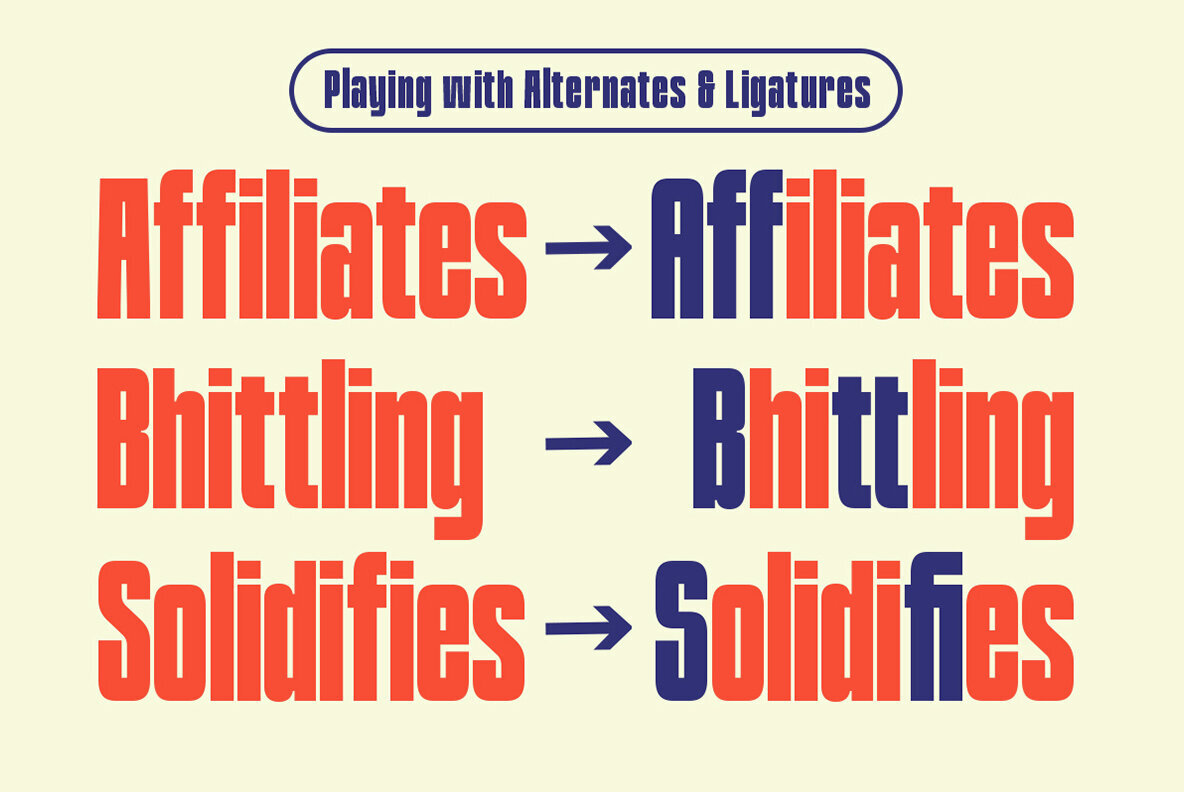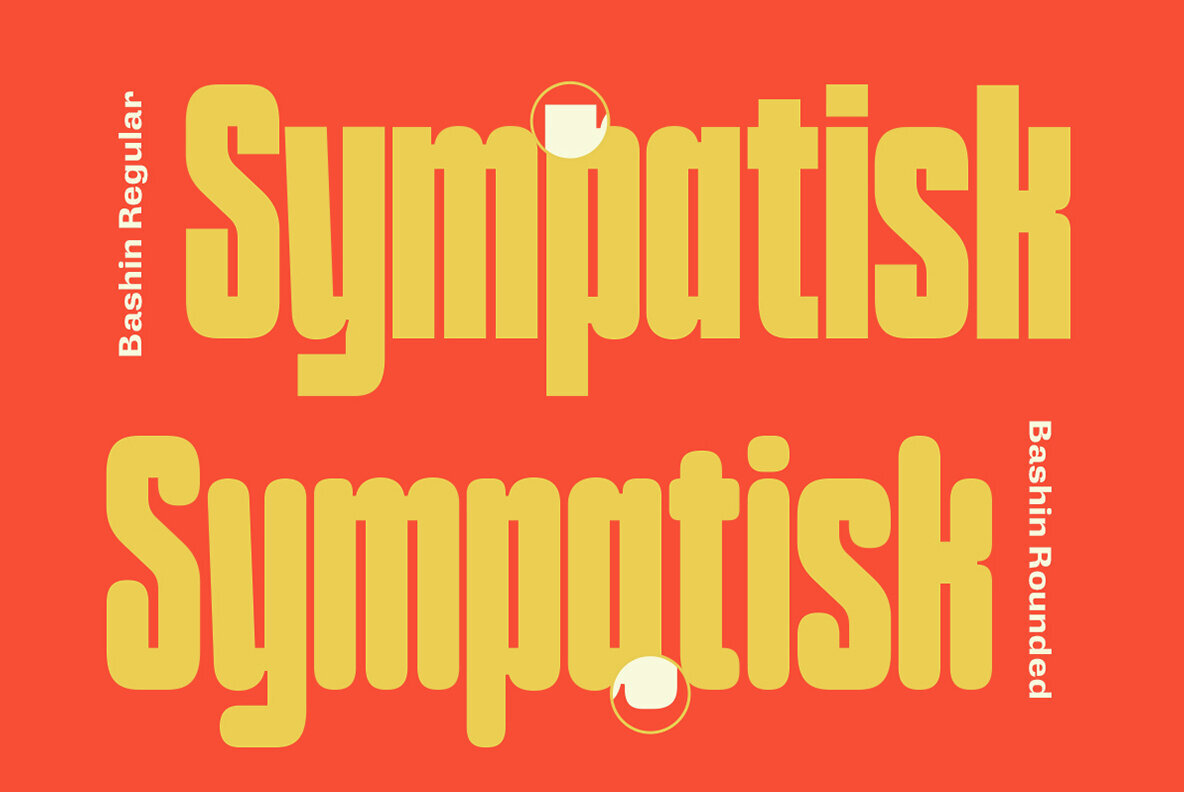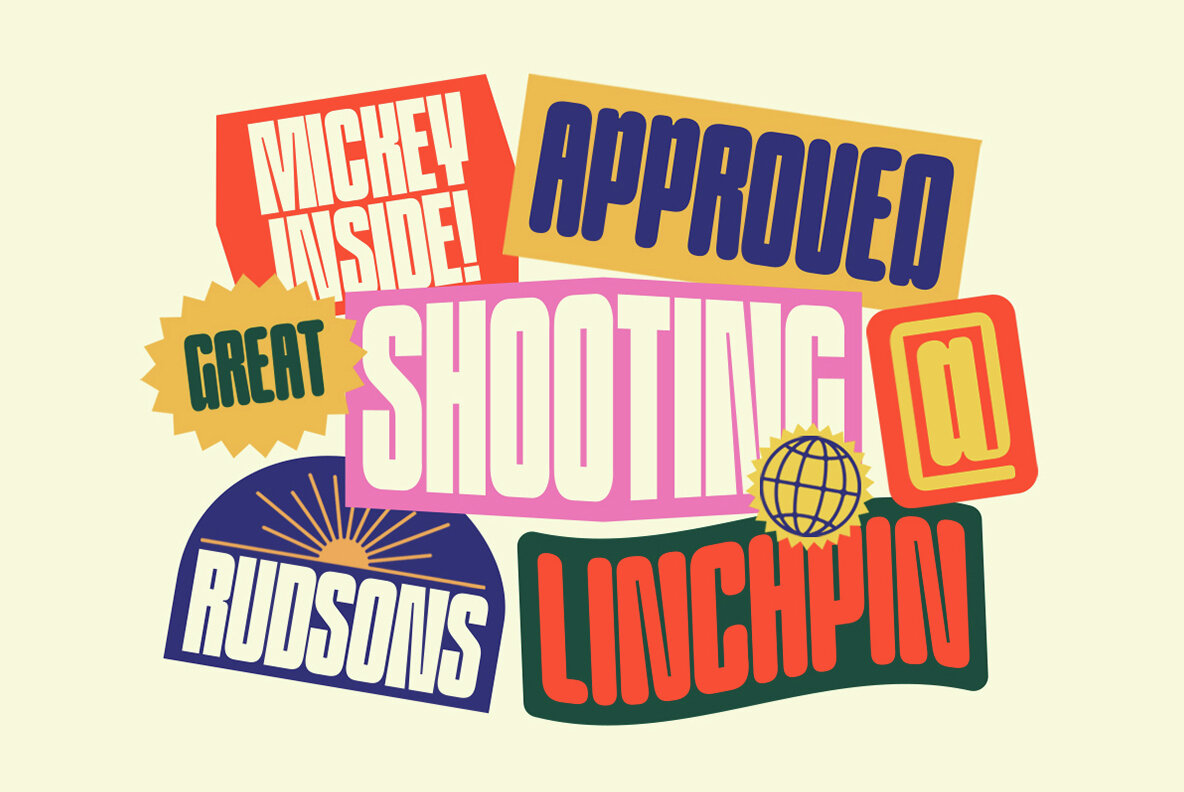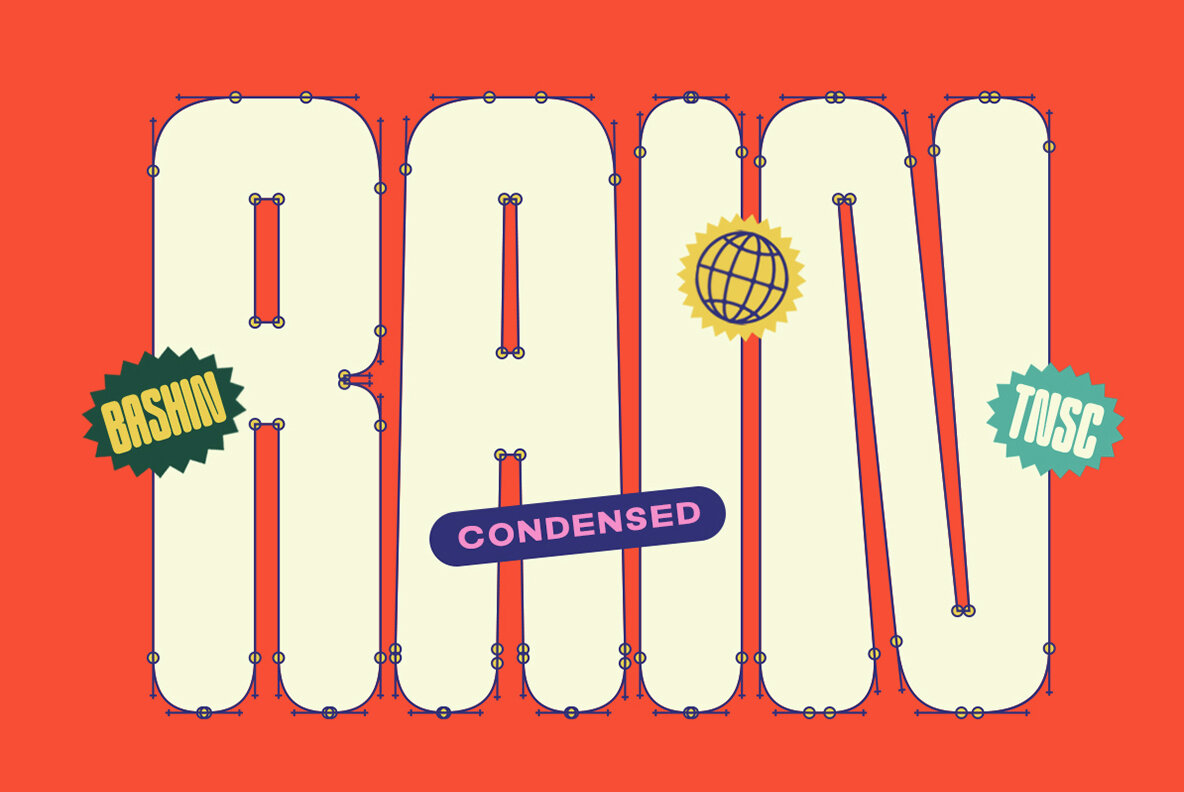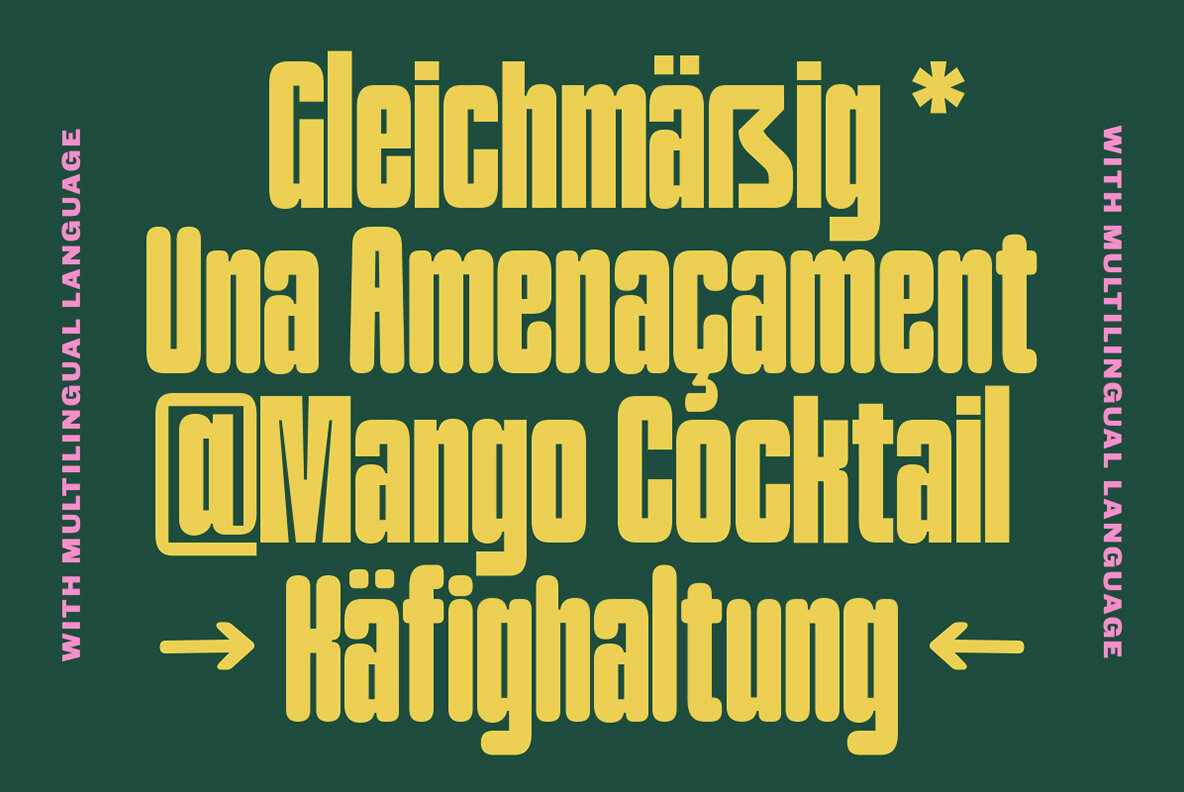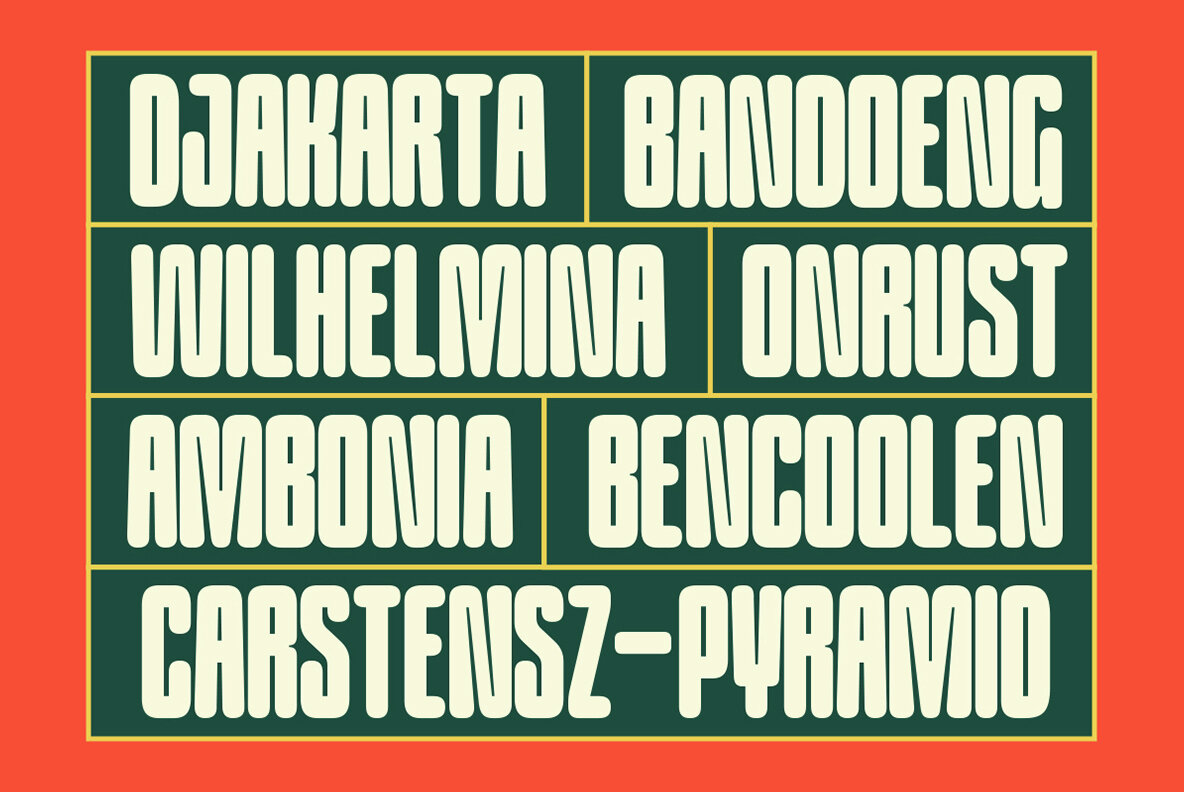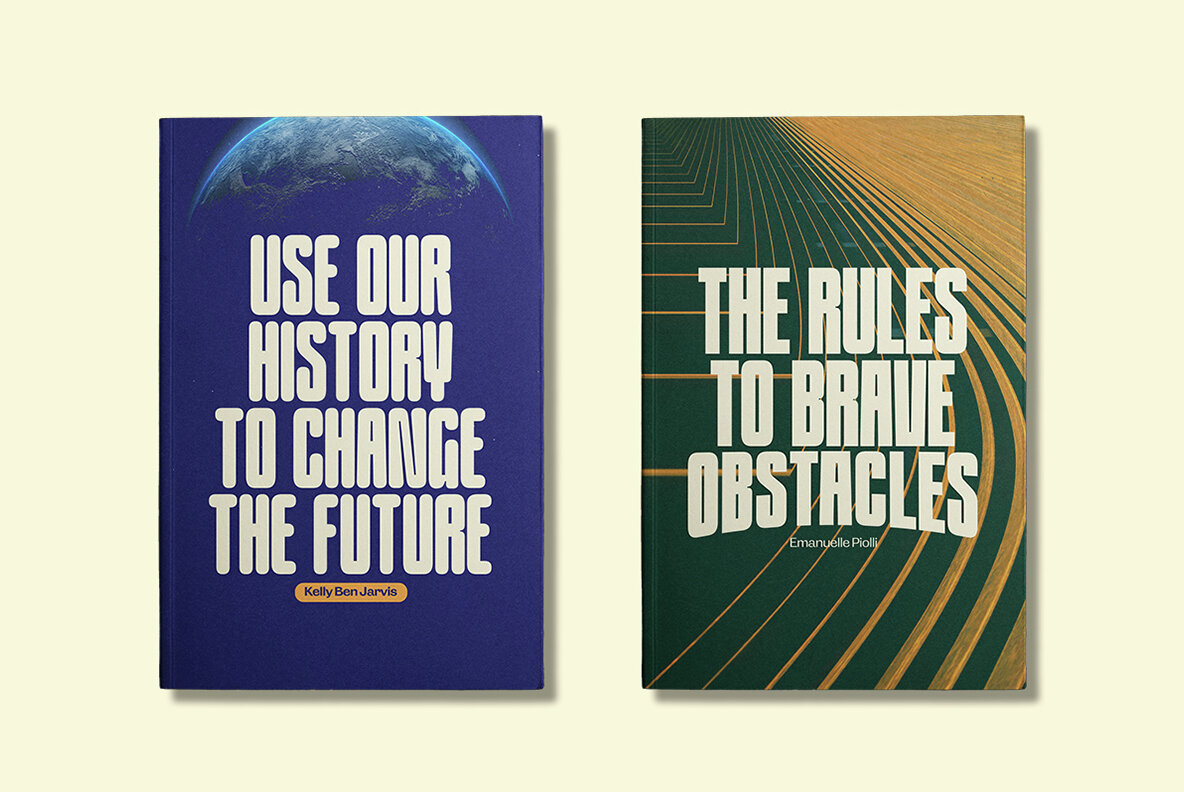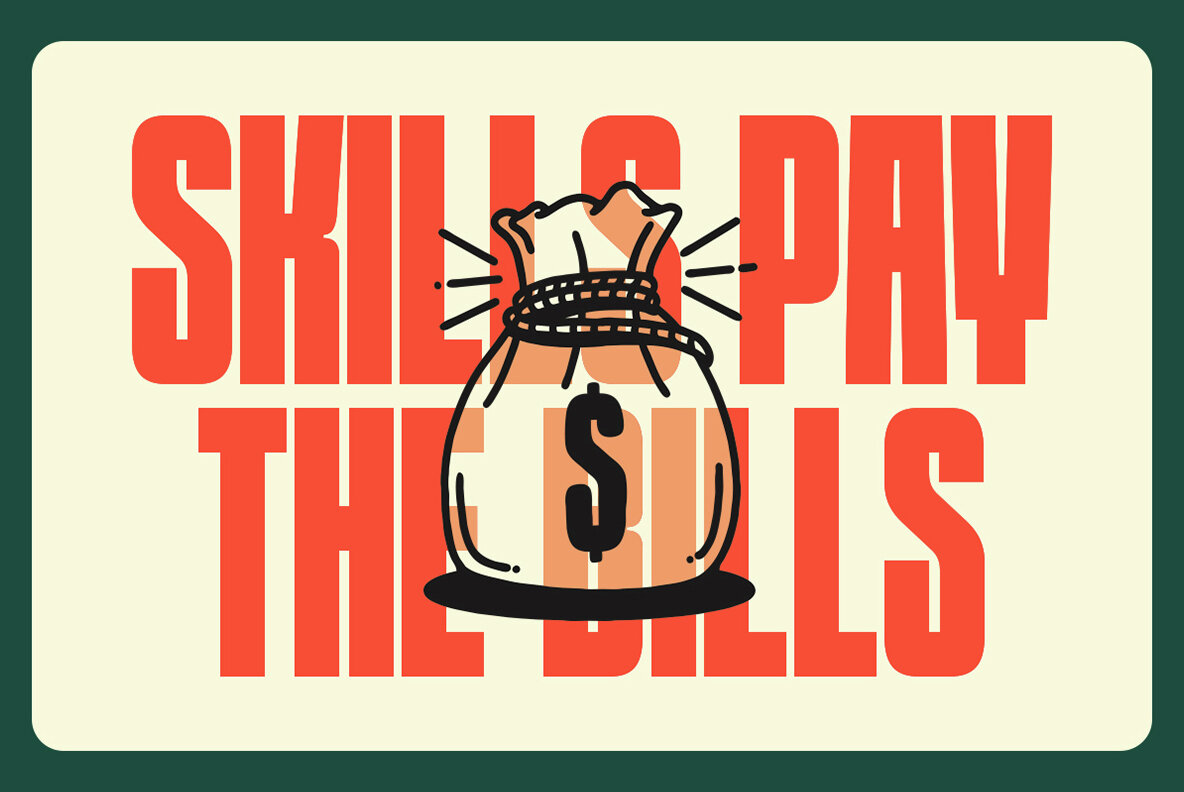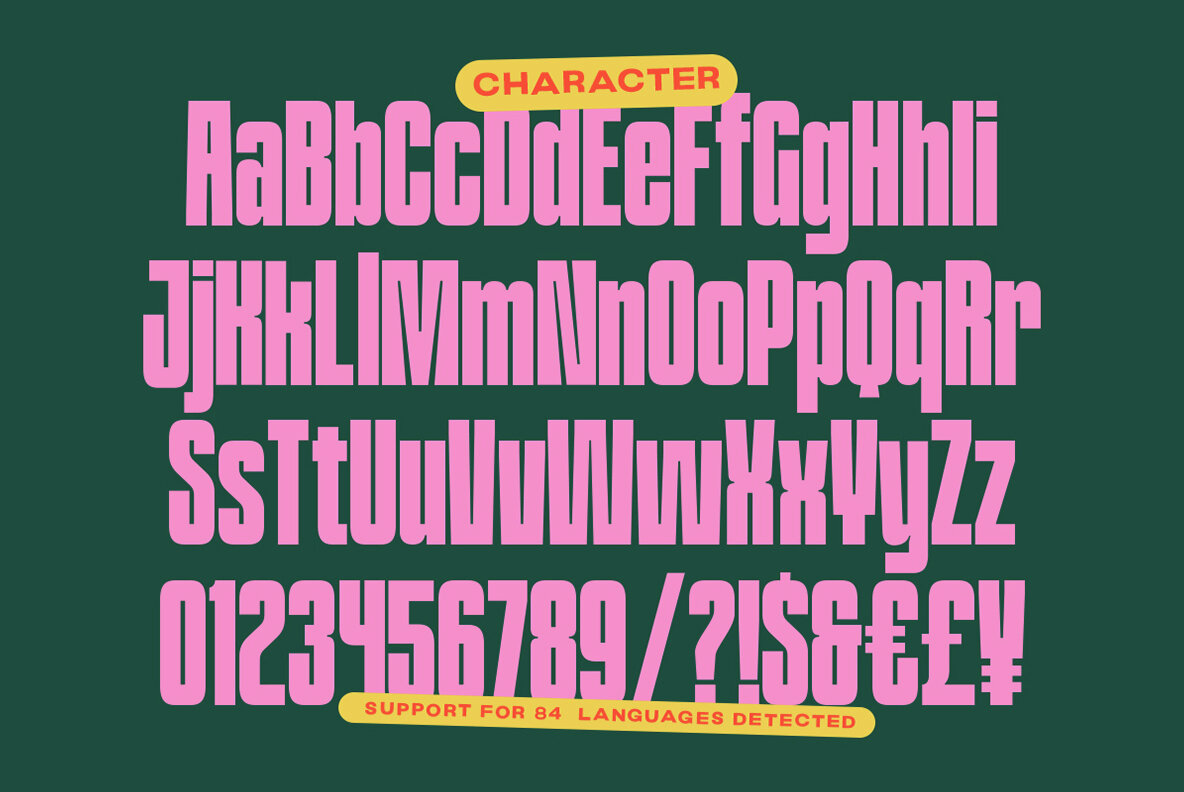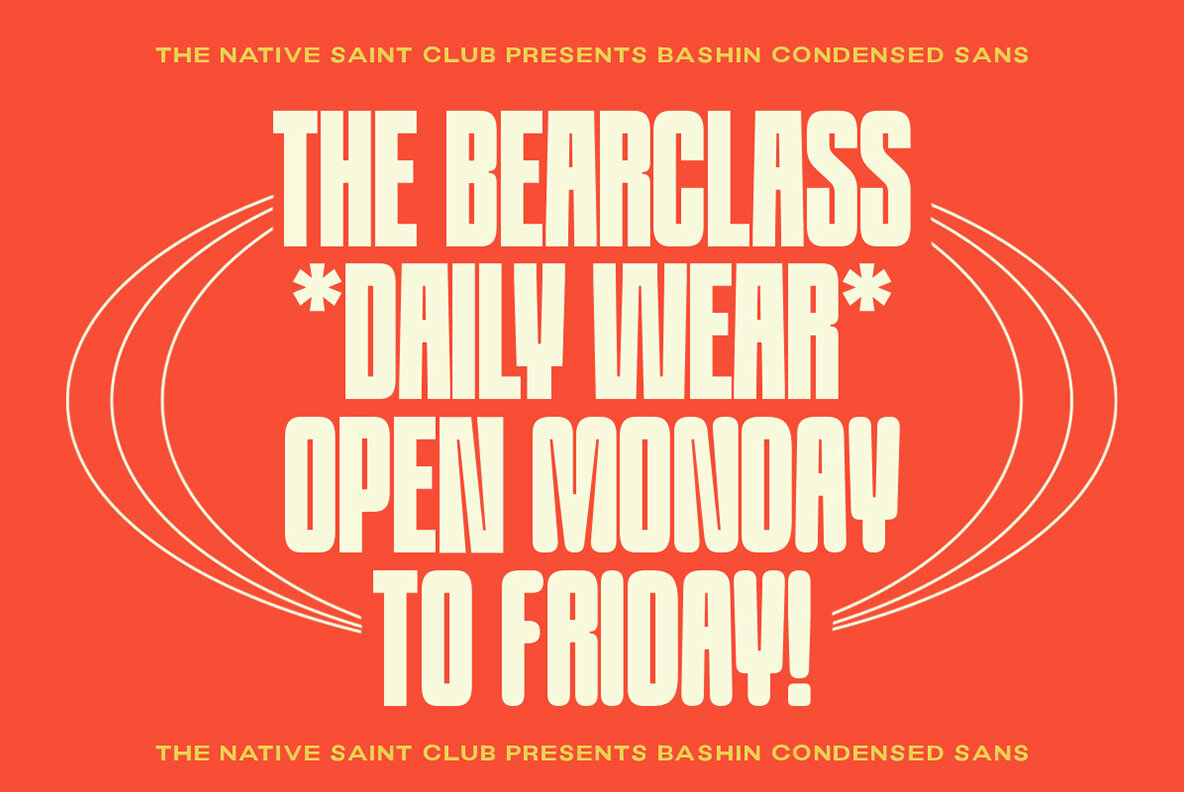
Bashin Font
Bashin Regular
Bashin Rounded
TNSC Bashin is a condensed sans serif font. comes with two styles, regular and rounded. With a few ligatures and some alternates. Looks legible and expressive shapes. it is perfect for poster design, headlines, magazines, billboards, branding, and logos.